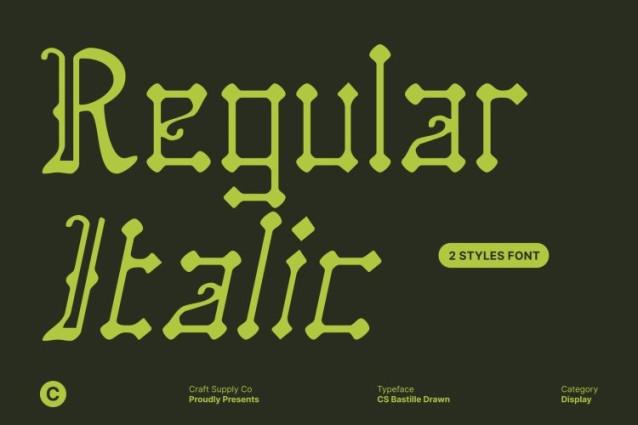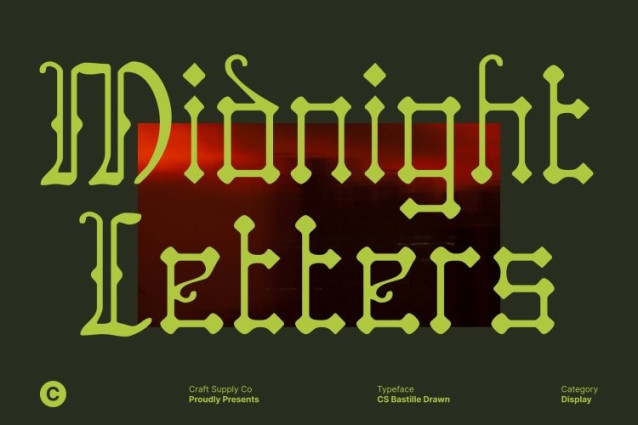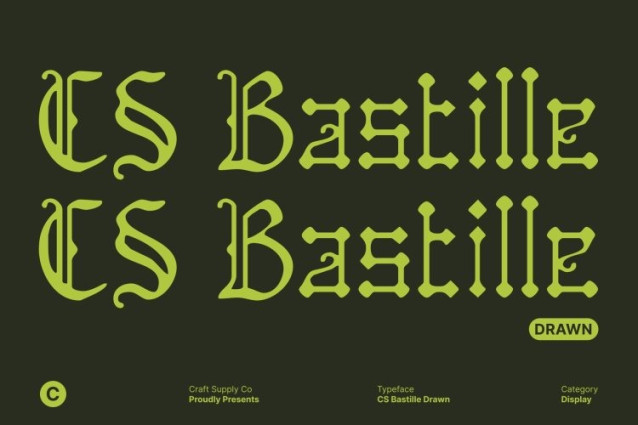
CS Bastille Drawn Font
CS Bastille Drawn Font – This is a decorative Blackletter font that showcases aesthetic, dramatic strokes infused with an air of mystery. Its intricate forms create a striking visual impact, making it ideal for book covers, posters, and distinctive branding projects. The Gothic-inspired shapes convey power, tradition, and artistic depth, giving designs a commanding presence.
Hand-Drawn Texture for Artistic Flair
The drawn texture adds a handcrafted, artistic quality to this font, giving each character a unique personality. Subtle imperfections and organic lines enhance the font’s authenticity, making every design feel personal and expressive. This handmade quality makes it perfect for projects that want to stand out with originality and artisanal charm.
Classic Yet Distinctive Aesthetic
With its traditional Blackletter inspiration, balances historical elegance with modern creative flair. Its strong presence communicates authority and style, ensuring designs capture attention while maintaining sophistication. The decorative flourishes and sharp contrasts within the letterforms give it a refined yet edgy character suitable for a wide range of creative applications.
Versatile for Creative Applications
Perfect for projects that require bold typographic statements, works across posters, editorial layouts, packaging, and branding. Its dramatic strokes and hand-drawn charm provide a timeless, memorable, and artistic typographic identity.